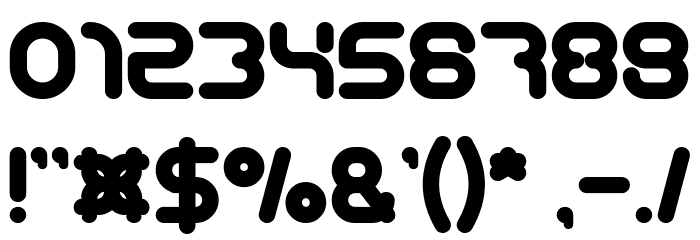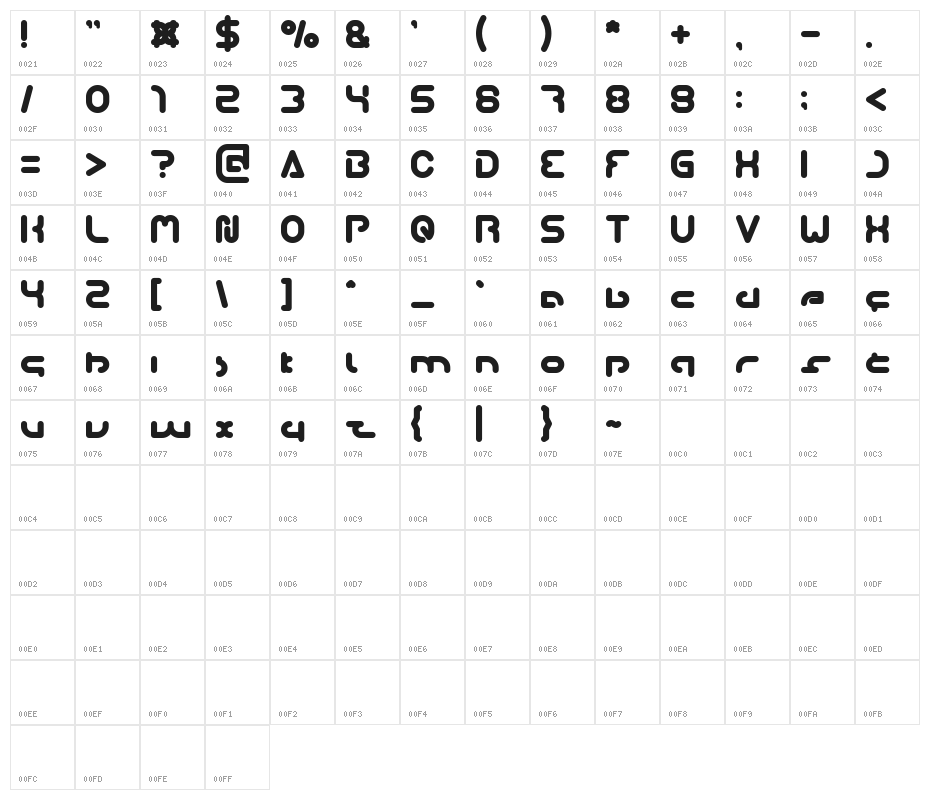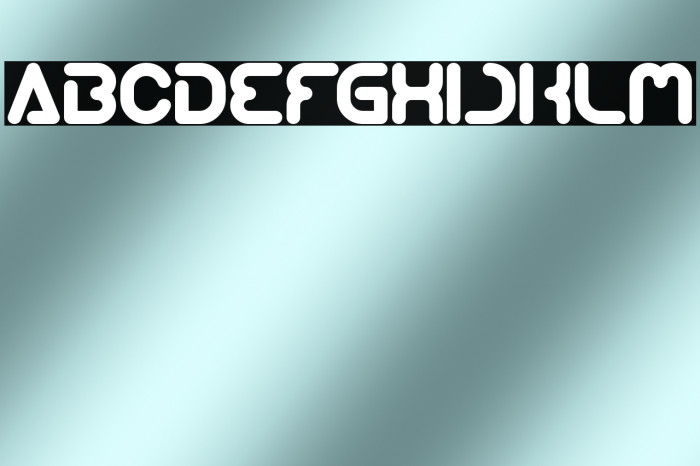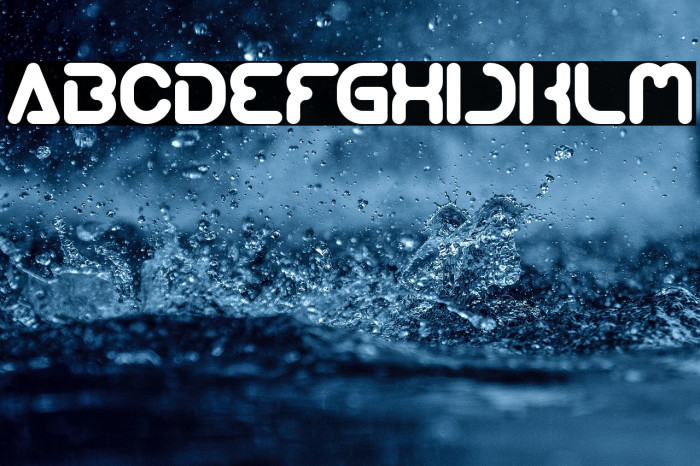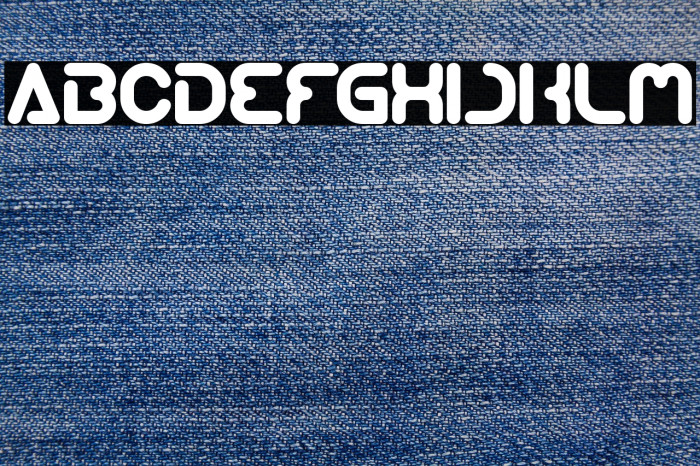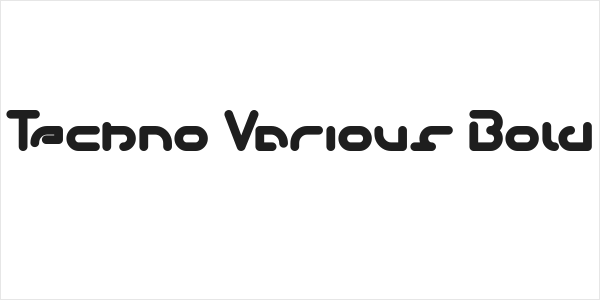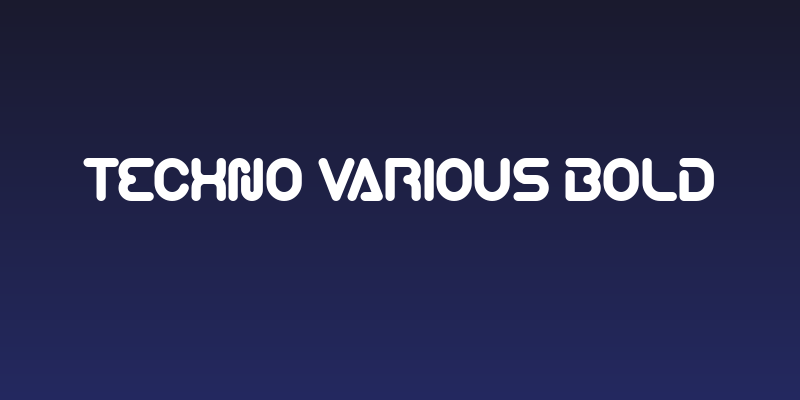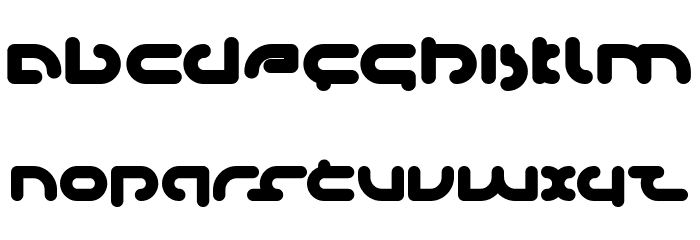
Techno Various Bold Font
Techno Various Bold Description
This font features a bold, futuristic design with rounded edges and a techno-inspired aesthetic. The characters are uniformly thick, creating a strong visual impact. The uppercase and lowercase letters maintain a consistent style, with a slightly condensed appearance that enhances readability. The numbers and special characters are designed to match the overall theme, making them suitable for digital and modern contexts. The font's unique style makes it stand out, with a focus on geometric shapes and smooth curves.